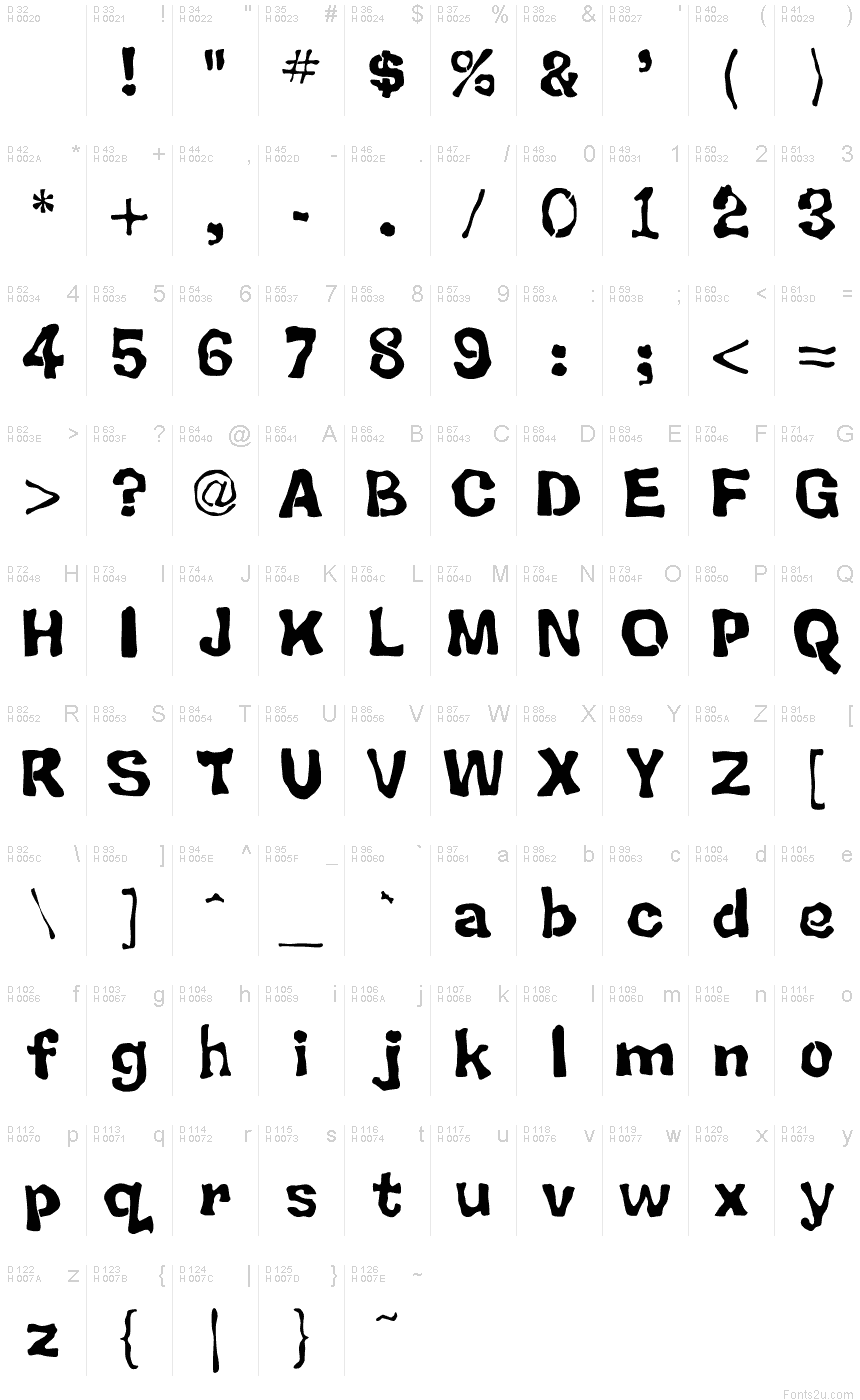
BackSplatter Drippy
BackSplatter Drippy font by Rev. Josh Wilhelm splashes across the page with chunky, ink-soaked shapes and irregular edges that feel smeared by a sticky brush. Part of the BackSplatter family, it is a free distorted display font, made to look messy on purpose—bold, loud, and a little unhinged.
Using BackSplatter Drippy works beautifully for horror posters, Halloween flyers, punk gig promos, skate stickers, DIY zines, haunted-house signage, YouTube thumbnails, and gritty game titles. Keep it large so the drips read cleanly, and pair it with a plain sans typeface for dates, credits, or body copy—let this free font handle the chaos while the rest stays crisp.